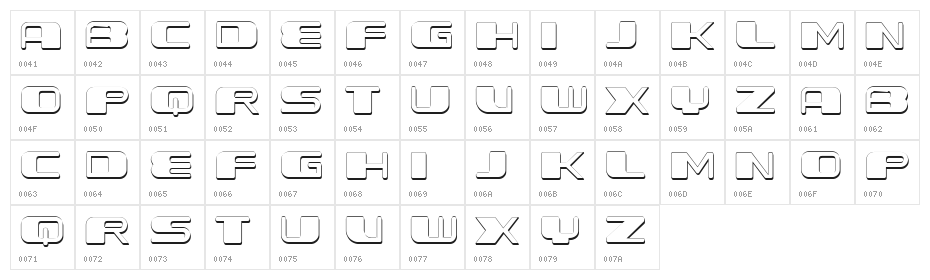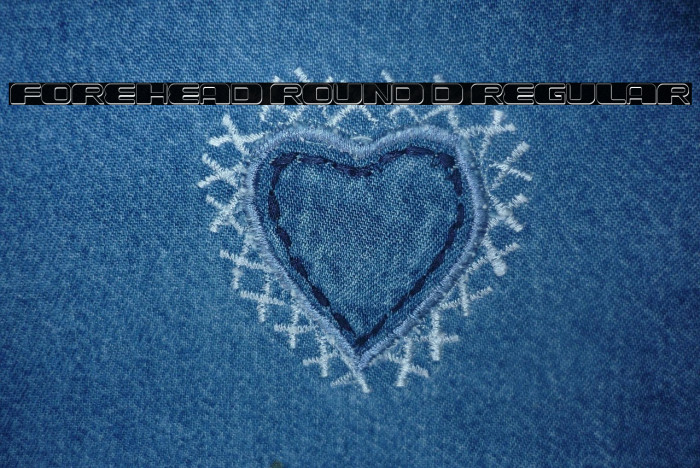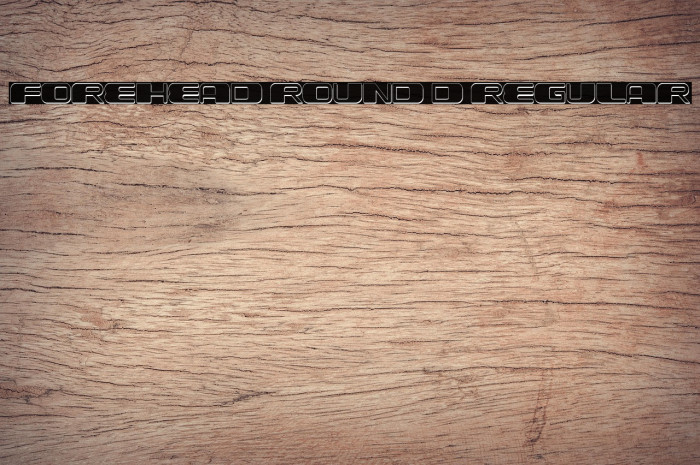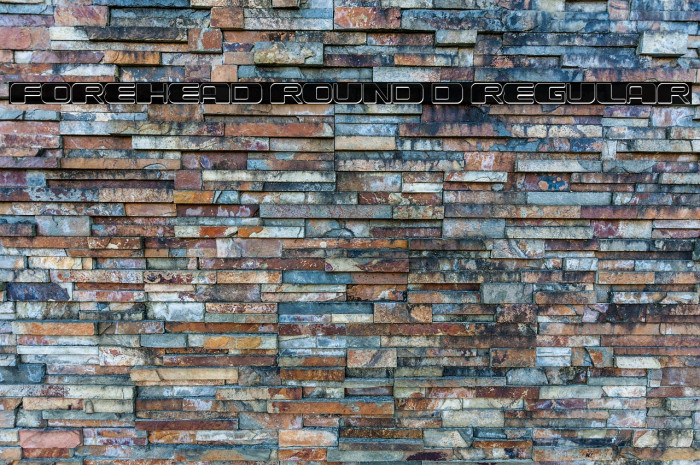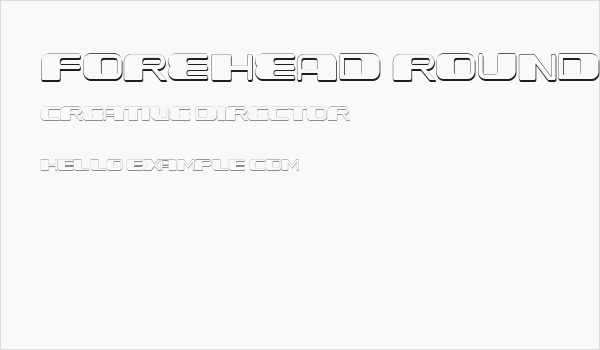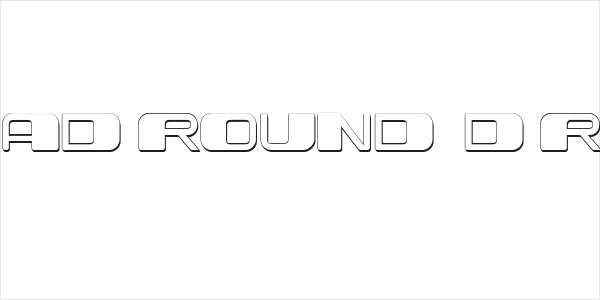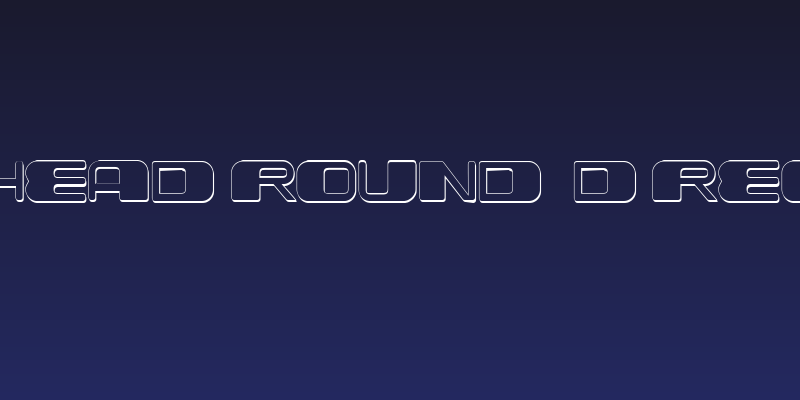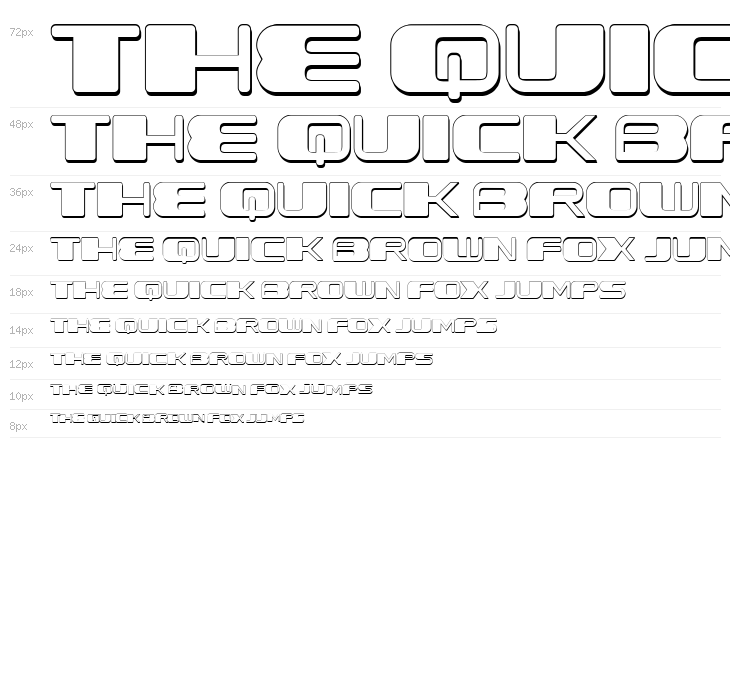
Forehead Round 3D Regular Font
Forehead Round 3D Regular Description
This font features a bold, three-dimensional appearance with rounded edges, creating a futuristic and dynamic look. The characters are outlined with a shadow effect that enhances the 3D illusion, making each letter stand out prominently. The uppercase letters are uniform in height, with a consistent width that gives the font a balanced and structured feel. The design is clean and modern, with a slight geometric influence that adds to its contemporary appeal. The font's unique style makes it ideal for projects that require a strong visual impact.
| Proposed Projects | Ideal for use in technology branding, video game titles, sci-fi movie posters, and modern advertising campaigns. |